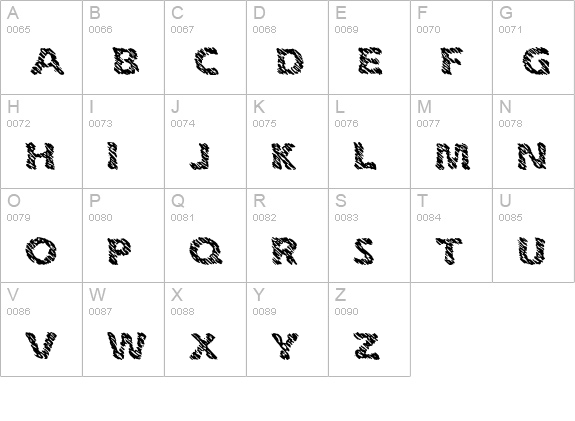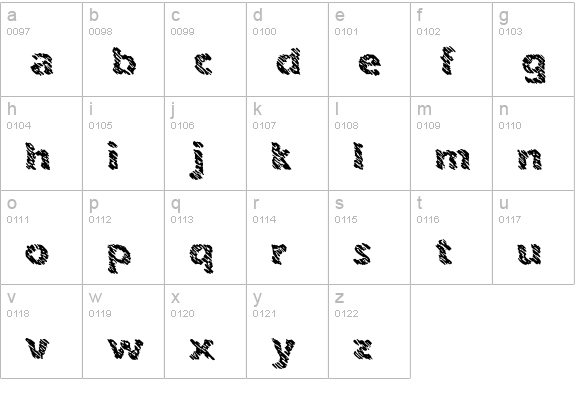
Ink Swipes (BRK) font is a unique and captivating typeface that will bring a touch of artistic flair to any project. With its bold and fluid strokes, this font sets itself apart from the rest, making a bold statement. It exudes a sense of creativity and personality that is sure to catch the eye of any viewer. The Ink Swipes (BRK) font is perfect for a wide range of design projects, from logos and branding to posters and invitations. Its playful yet sophisticated style makes it versatile and adaptable to any creative vision. Whether you're looking to add a dash of whimsy or a dash of elegance, this font has got you covered. One of the best things about Ink Swipes (BRK) font is that it is free! That's right, you can download this amazing font without spending a dime. It is freely available for download at FontsMarket.com, where you can easily access and start using it in your designs. So why wait? Get your hands on the Ink Swipes (BRK) font now and let your creativity flow freely. With its stunning aesthetic and easy accessibility, it's a font that will not only elevate your designs but also make a lasting impression on anyone who sees it. Don't miss out on this incredible opportunity to enhance your creative projects with the Ink Swipes (BRK) font.